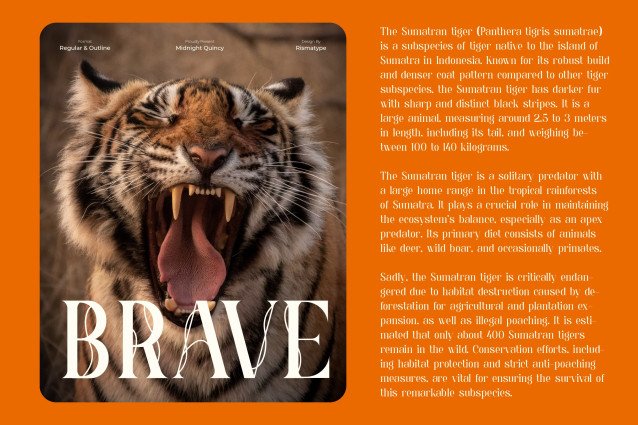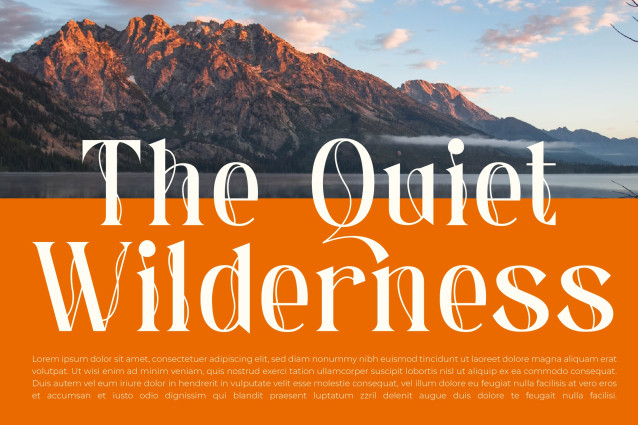
Midnight Quincy Font
Midnight Quincy Font is an elegant serif display outline typeface that features smooth curves and modern proportions. with strong high-contrast details. it’s perfect for display use and eye-catching headlines. the typeface includes a selection of alternates and ligatures. offering greater design flexibility. it supports multiple languages with latin extended characters and smart dia-critics. and it’s optimized for both high-resolution print and digital display.
This typeface is ideal for fashion magazine layouts. stylish editorials. and elegant cover designs. it also works beautifully for luxury branding. premi-um packaging. and boutique logo design. whether you’re crafting invitations. lookbooks. artistic posters. or print publications. Midnight Quincy adds a re-fined touch. it also performs beautifully in digital content. social media graph-ies. personal identity design. and sophisticated website headers or typo-graphic projects that call for a classy. confident voice.